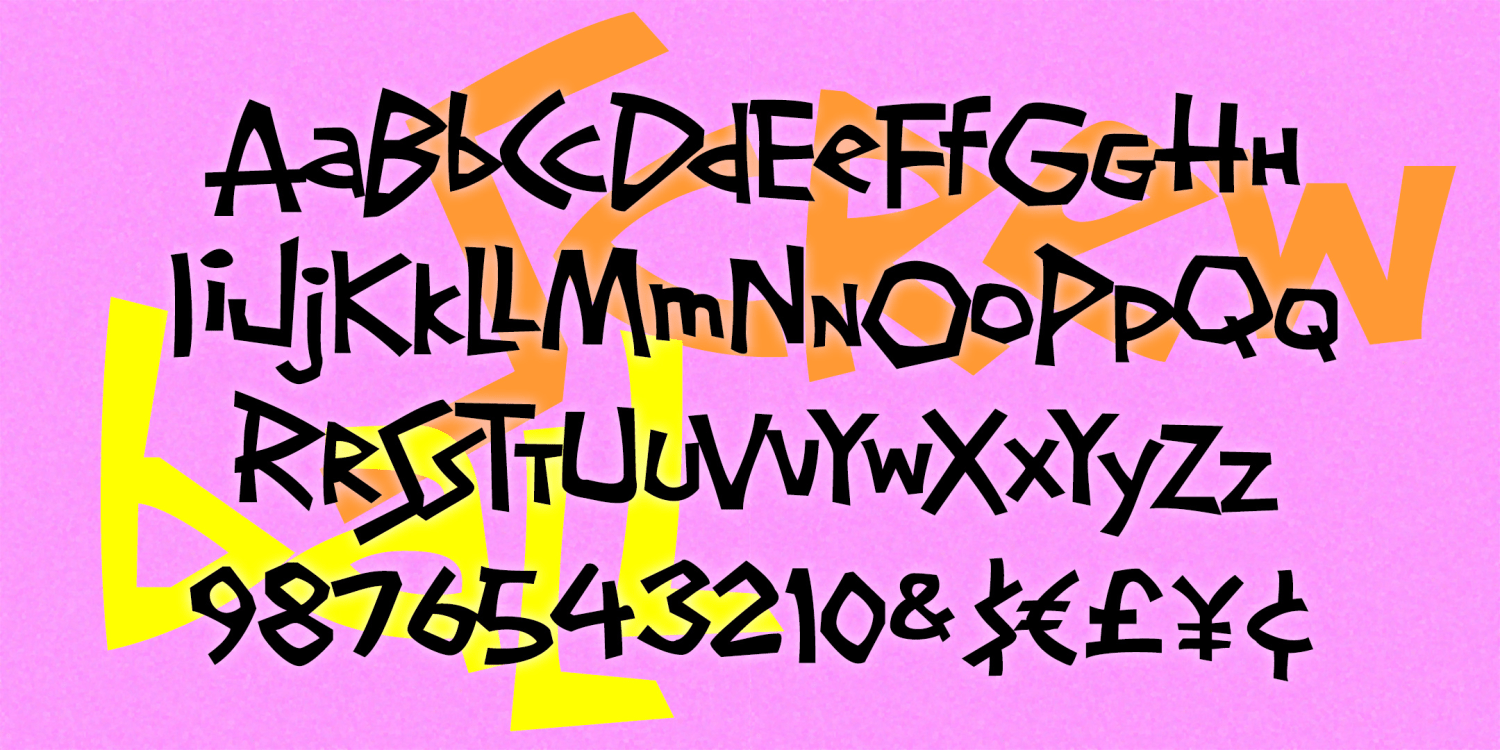
Screwball
About Screwball
SCREWBALL looks like whimsical hand-lettering. It's unpredictable with lots of close-fitting pairs. It was inspired by the hand-lettered titles of the 1972 movie "What's Up, Doc?", designed by The Golds West Inc. Version 1.5 includes…